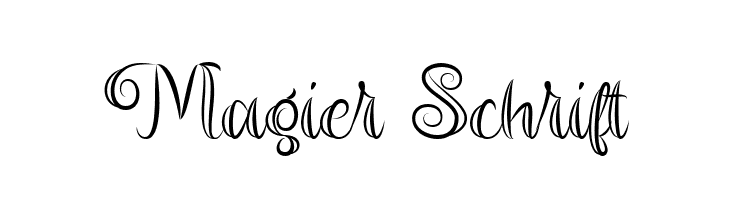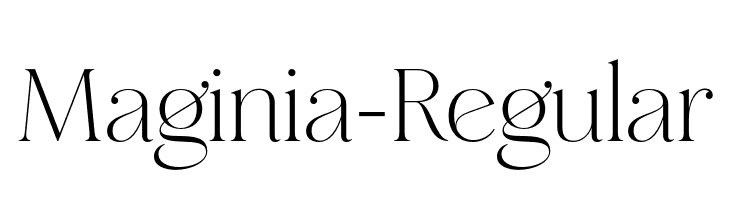
A whimsical script font with flowing, interconnected letterforms and decorative swirls.
An elegant, whimsical font with flowing, decorative strokes and enchanting flourishes.
An elegant and decorative font with ornate curves and whimsical flair.
An elegant, flowing script font with interconnected, cursive lines and graceful curves.
An elegant and flowing script font with graceful cursive strokes.
An elegant script font with flowing, interconnected strokes and dramatic ascenders.
A bold, expressive font with modern and vintage elements, featuring strong serifs and smooth curves.
A bold, slanted font with high contrast and elegant curves.
An elegant serif typeface with refined strokes and high contrast, perfect for sophisticated designs.
A graceful and fluid script font with elegant cursive strokes.